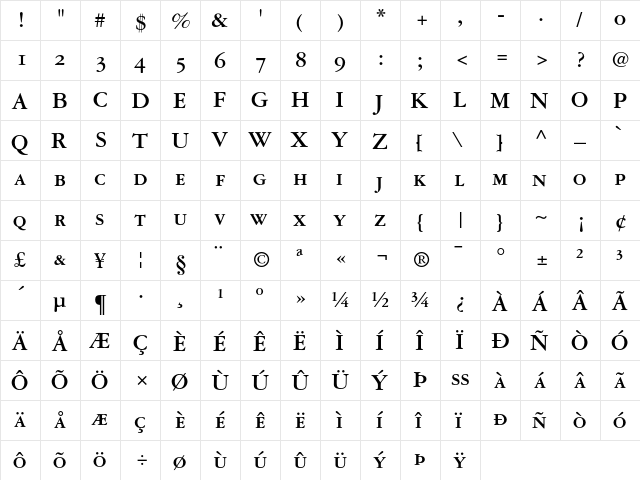
Garamond 3 Bold Small Caps & Old Style Figures
Design Context for Garamond 3 Typeface
Garamond 3 offers clean, dependable letterforms without strong stylistic allegiance, making it a practical choice for designers who need flexibility. The heavy weight commands attention and anchors typographic hierarchies.